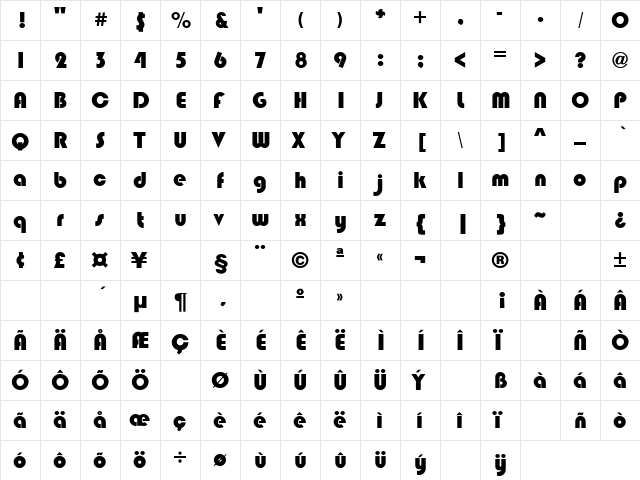
67 Regular Font Preview
67 Regular
Design Context for 67 Typeface
67 is a composed and adaptable typeface that performs quietly and consistently across a wide range of design contexts.